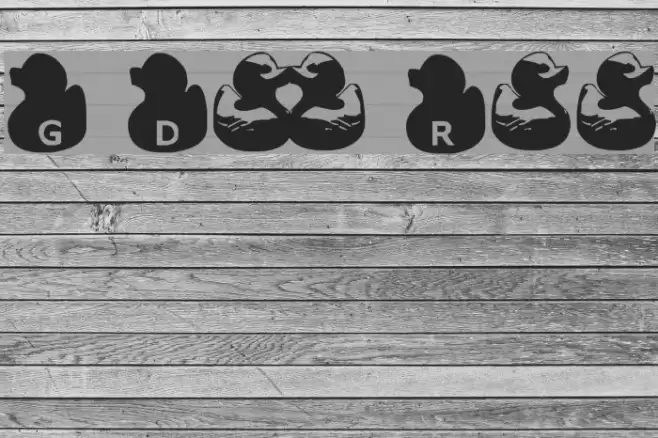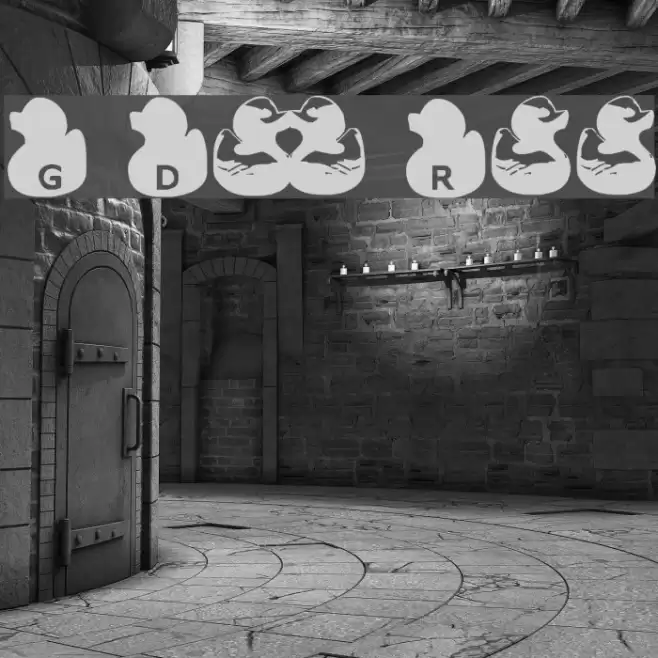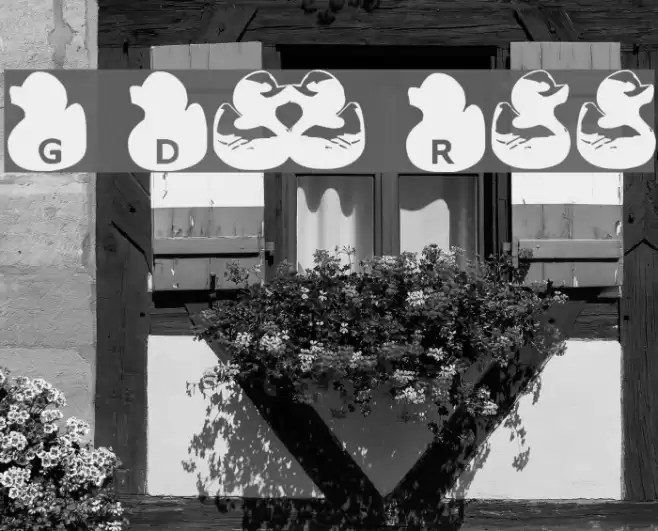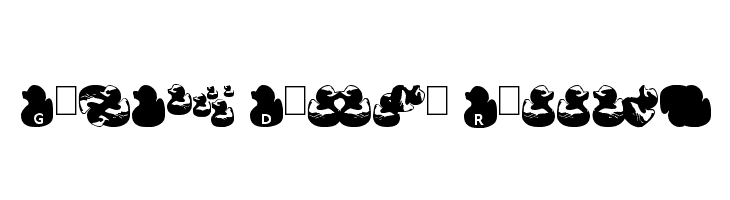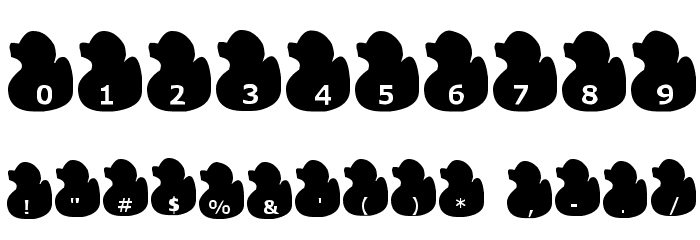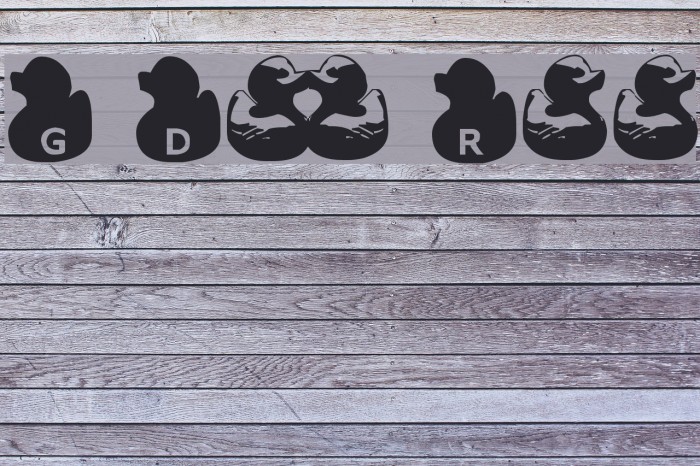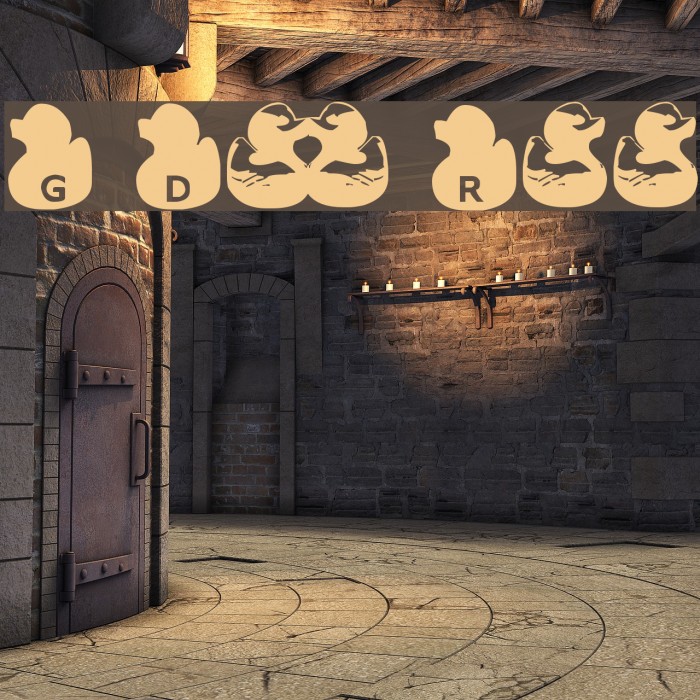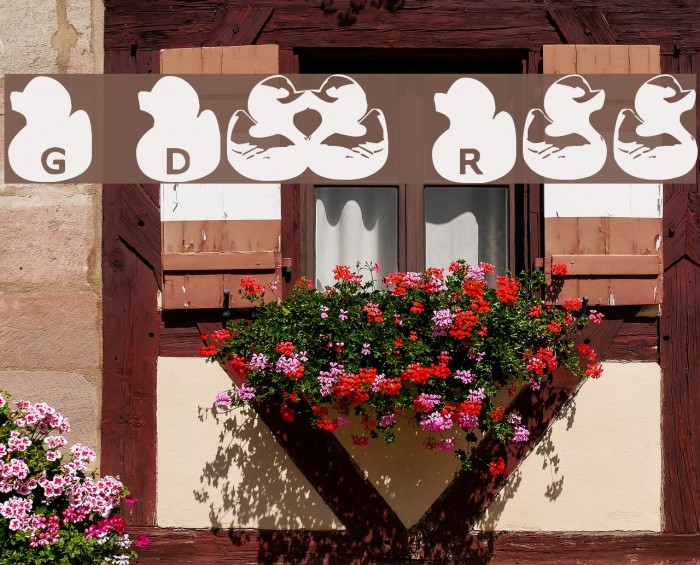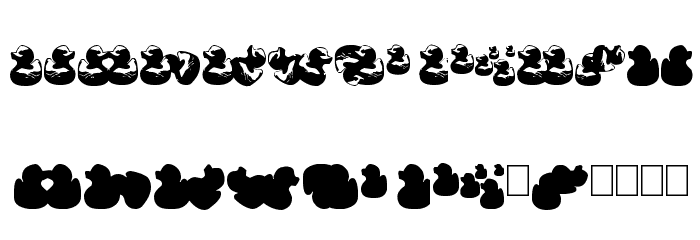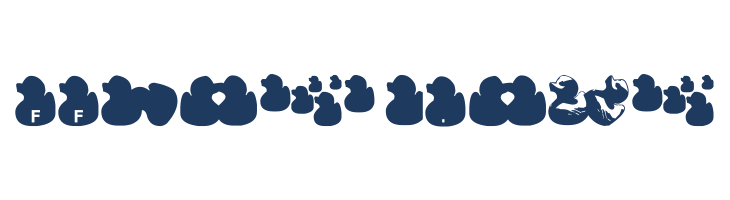
Gugli Ducky Rubber Font
Gugli Ducky Rubber Description
This playful and whimsical font features each character embedded within the silhouette of a rubber duck. The design is highly decorative, with each letter and number taking on a unique and charming appearance. The font is bold and eye-catching, making it ideal for projects that require a fun and lighthearted touch. The characters are evenly spaced within the duck shapes, providing a consistent look across the entire set. The font includes both uppercase and lowercase letters, numbers, and a selection of special characters, all maintaining the same duck motif. This font is perfect for children's projects, playful branding, or any design that seeks to incorporate a sense of humor and creativity.
A playful font with characters embedded in rubber duck silhouettes, perfect for whimsical designs.
- Proposed Projects: Ideal for children's books, playful branding, party invitations, and novelty items.
- Overall Style: Whimsical
- Use Case: Logos, Headlines, Decorative text